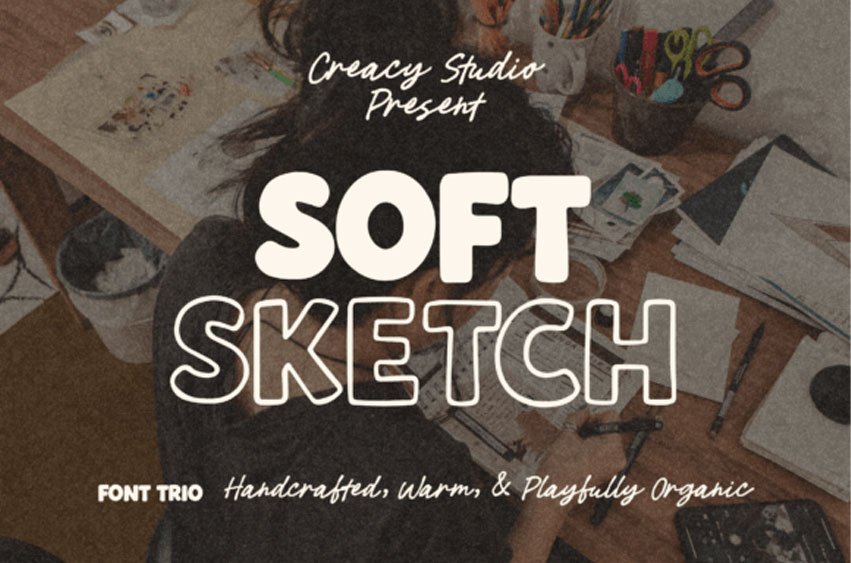
Soft Sketch Trio Font is a harmoniously designed font trio handcrafted for creative professionals desiring a personalized typographic touch.
SoftSketch is an embodiment of warmth, friendliness, and a distinct human approach, adding that quaint character to your designs. With an organic allure, its rounded lettering sketches draw inspiration from intimate creative experiences.
The font trio, which includes SoftSketch Solid, SoftSketch Outline, and SoftSketch Script, stands as an ideal choice for a multitude of uses such as modern storytelling, editorial designs, lifestyle projects, and social media branding.
This font family presents a remarkable unity, aiding effortless integration for headlines, taglines, marketing collateral, packaging, and more. SoftSketch Solid, SoftSketch Outline, and SoftSketch Script come together naturally, forming stylistic and fluid combinations that elevate the visual aspect of any design. Available in OTF, TTF formats with upper and lowercase versions, numbers, punctuation, symbols, currency, and multilingual support, SoftSketch provides a comprehensive toolset for diverse design requirements.
SoftSketch stands out with its charming presence while maintaining a gentle, inviting tone. Its handcrafted aesthetic, soft, rounded forms, and consistent quality harmonize ideally with photography and textures, making it a perfect fit for lifestyle content, quotes, storytelling, and marketing visuals.
The addition of a usage guide further renders it a go-to resource for those on the search for typefaces that resonate with their brand’s unique personality. SoftSketch’s creative versatility creates warmth while remaining approachable and visually compelling, making it an indispensable element of modern branding identity.